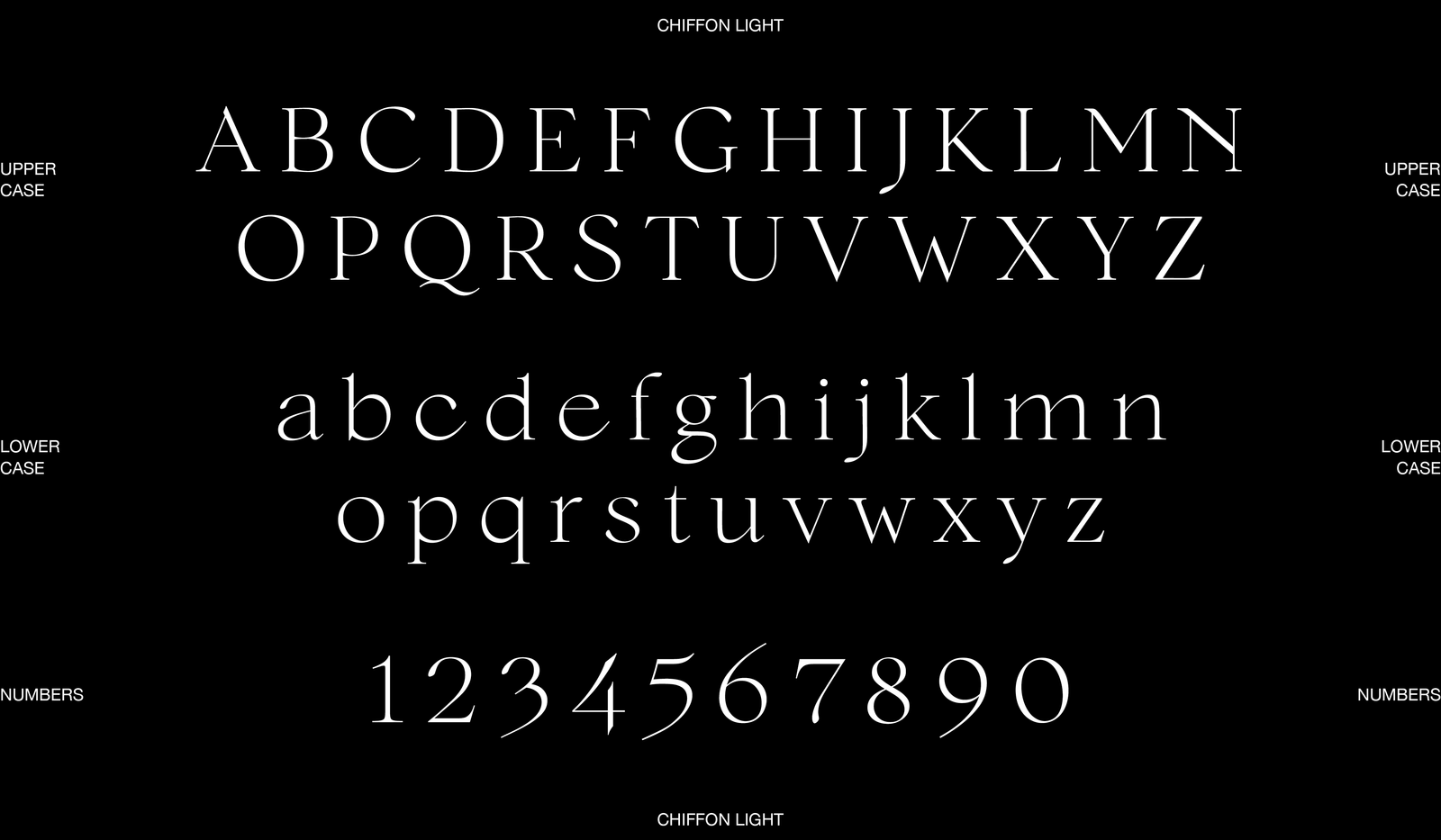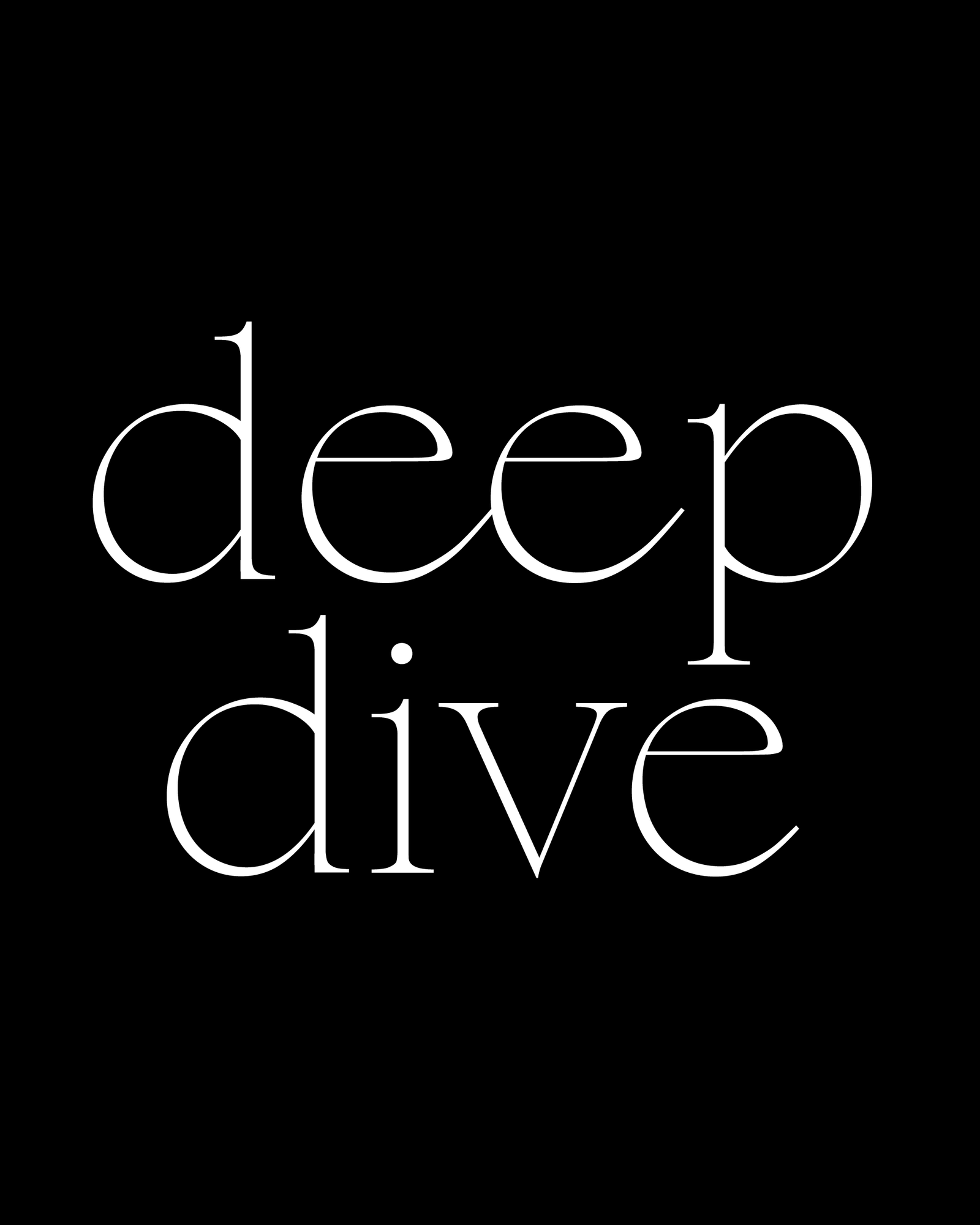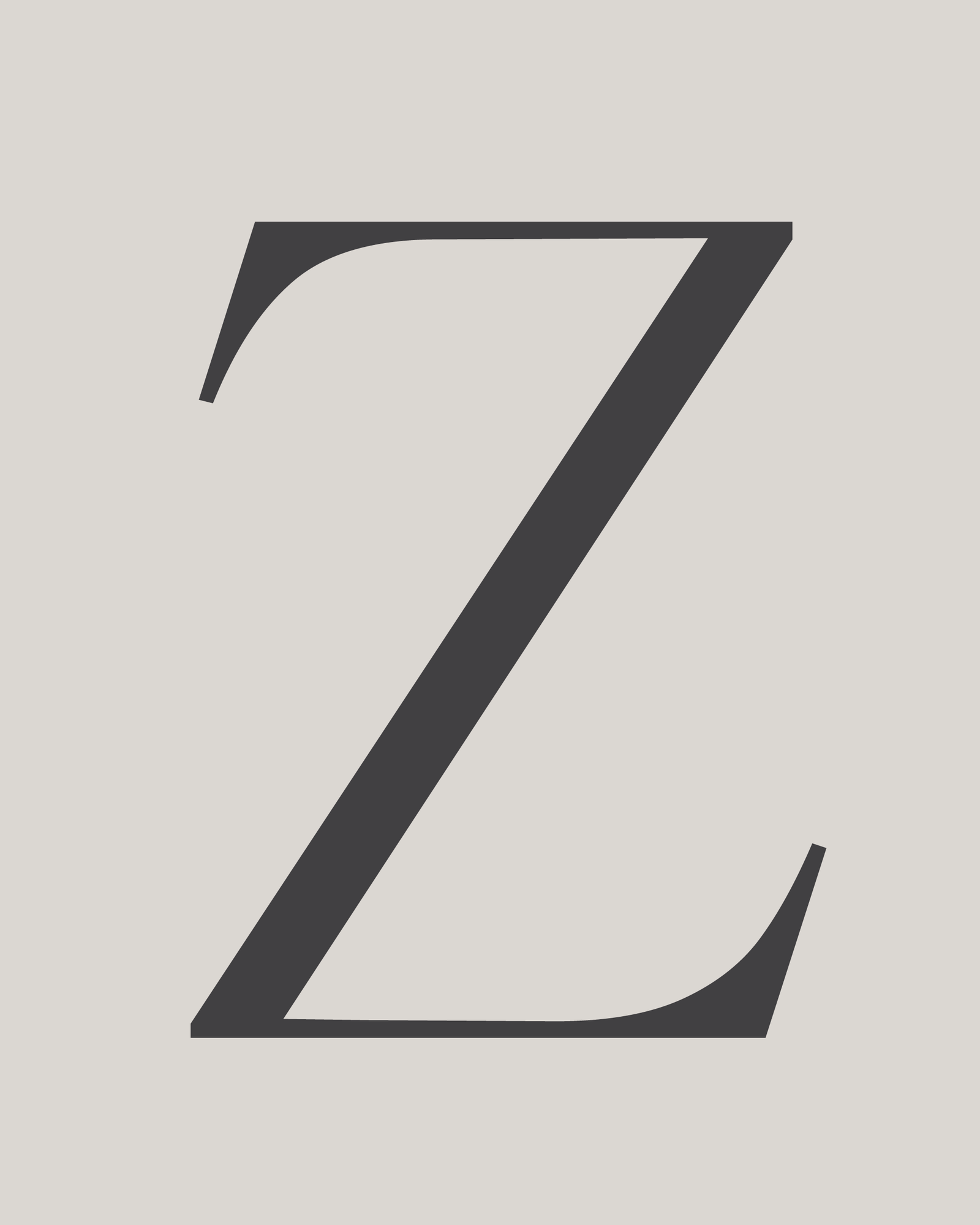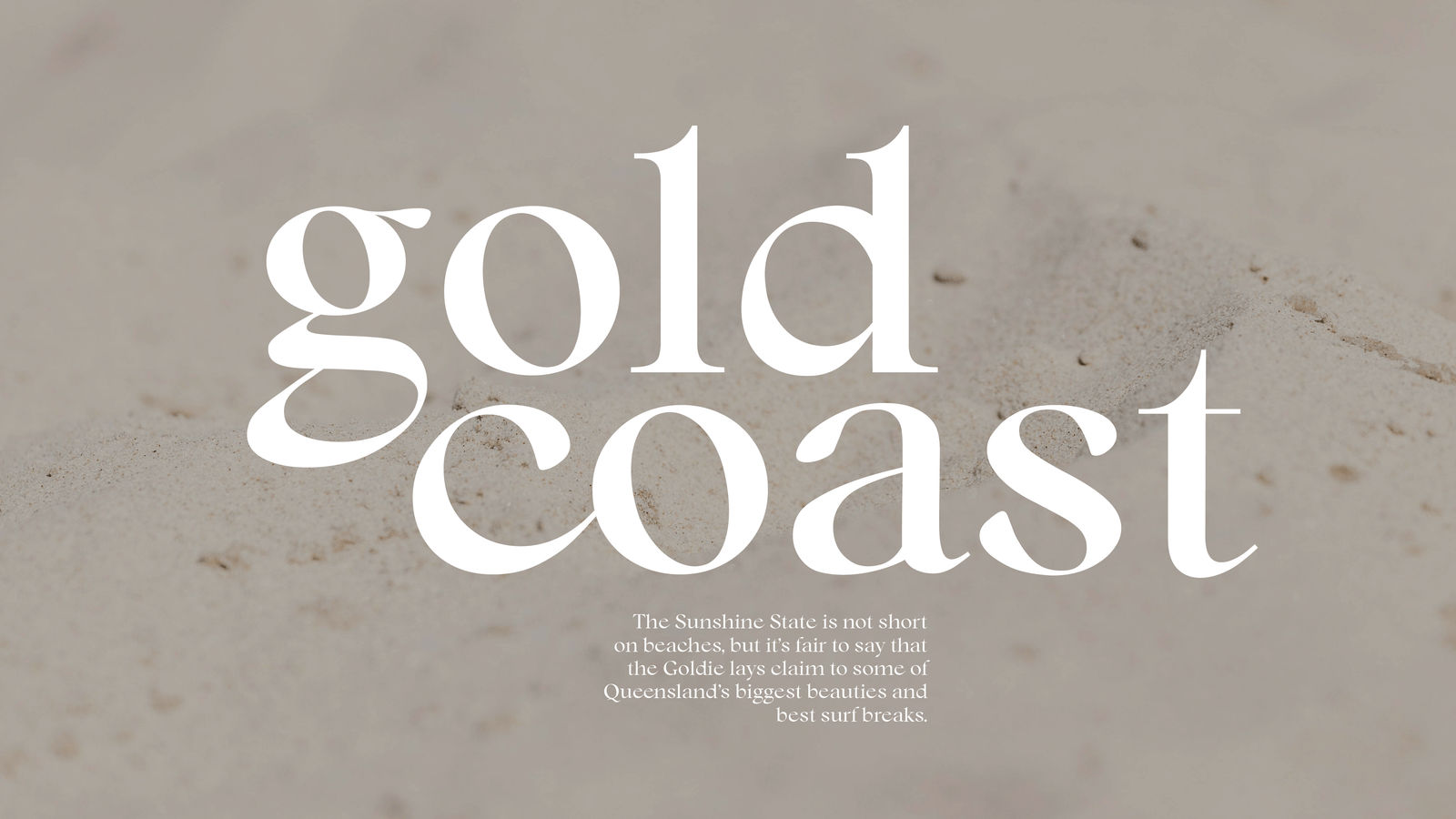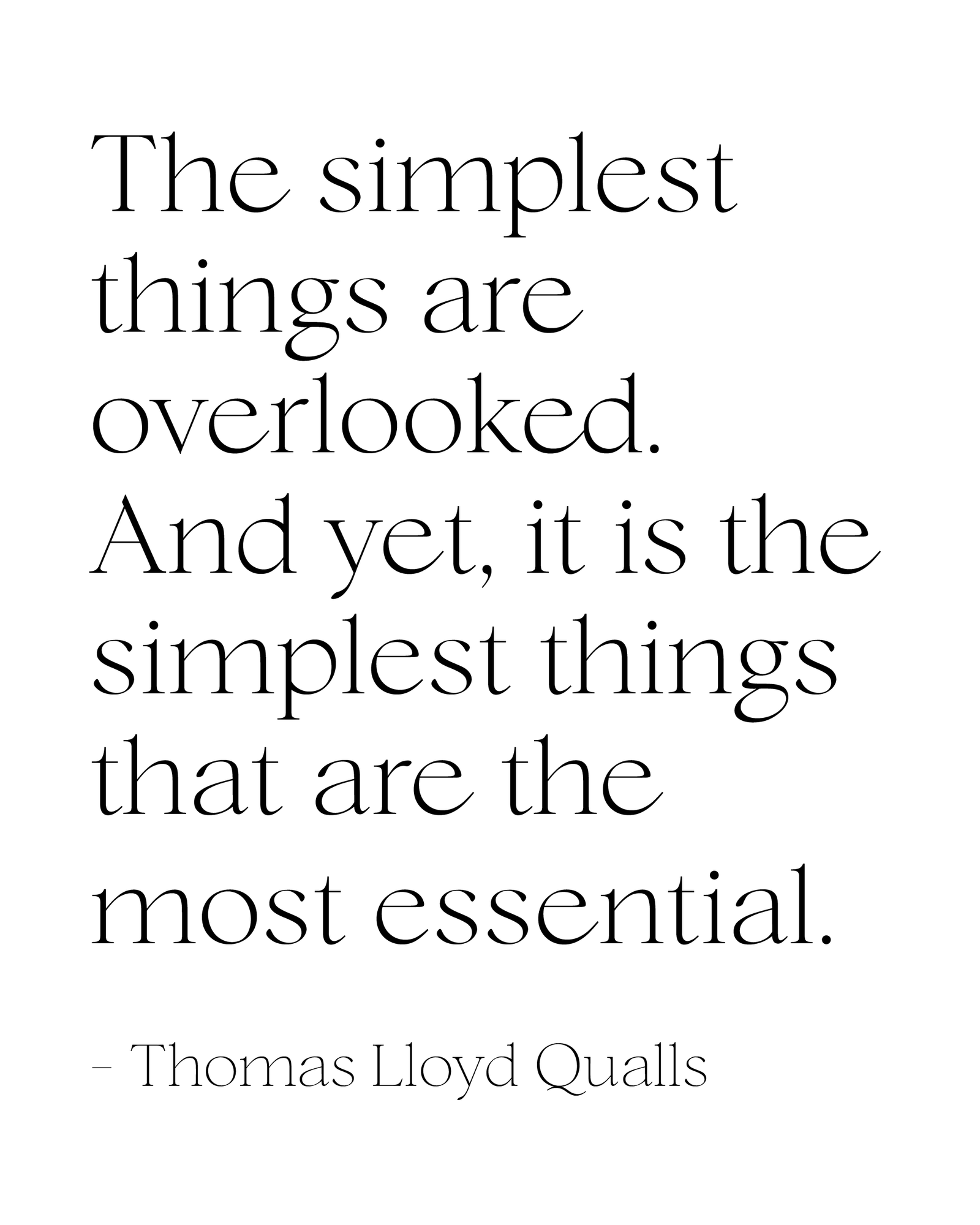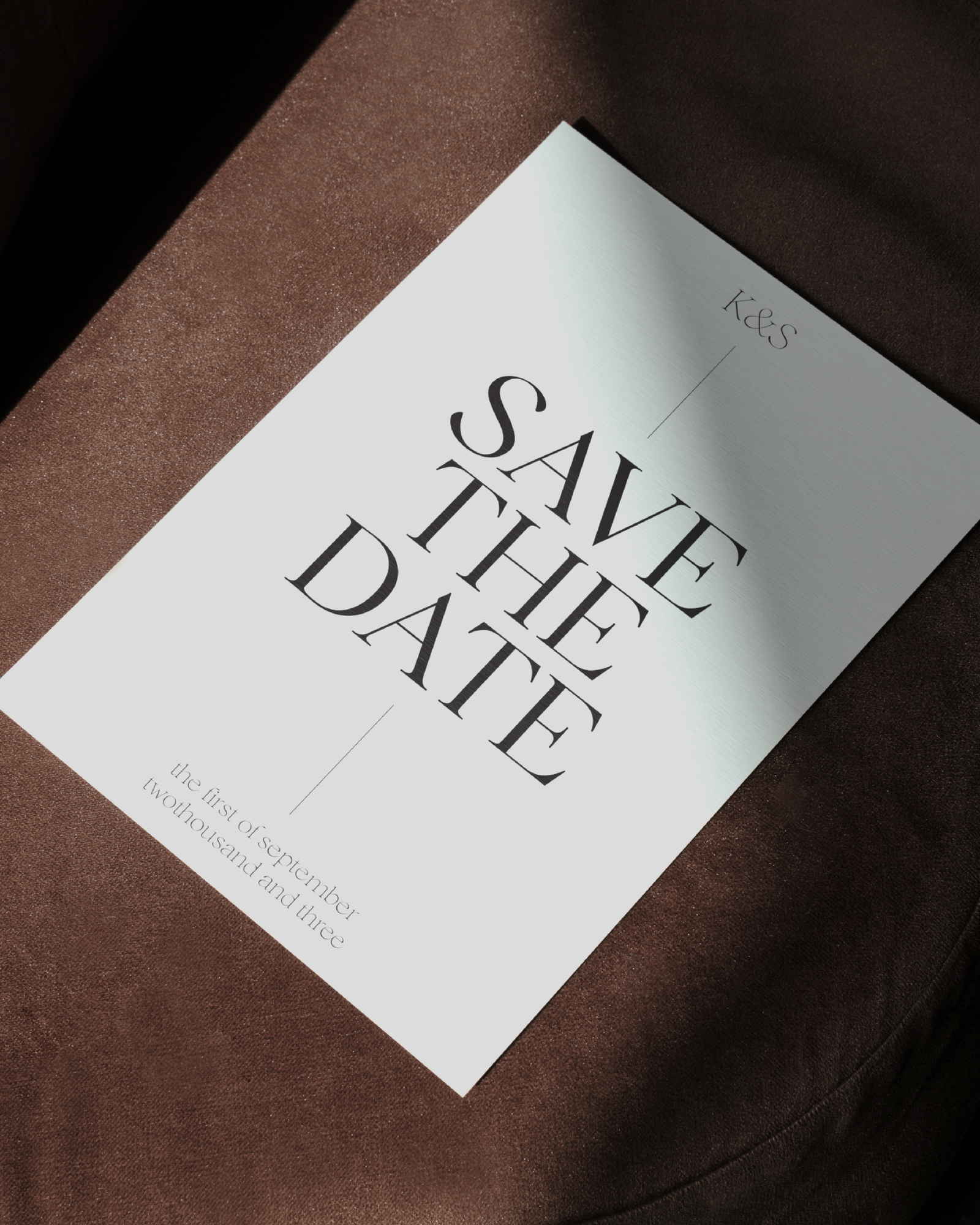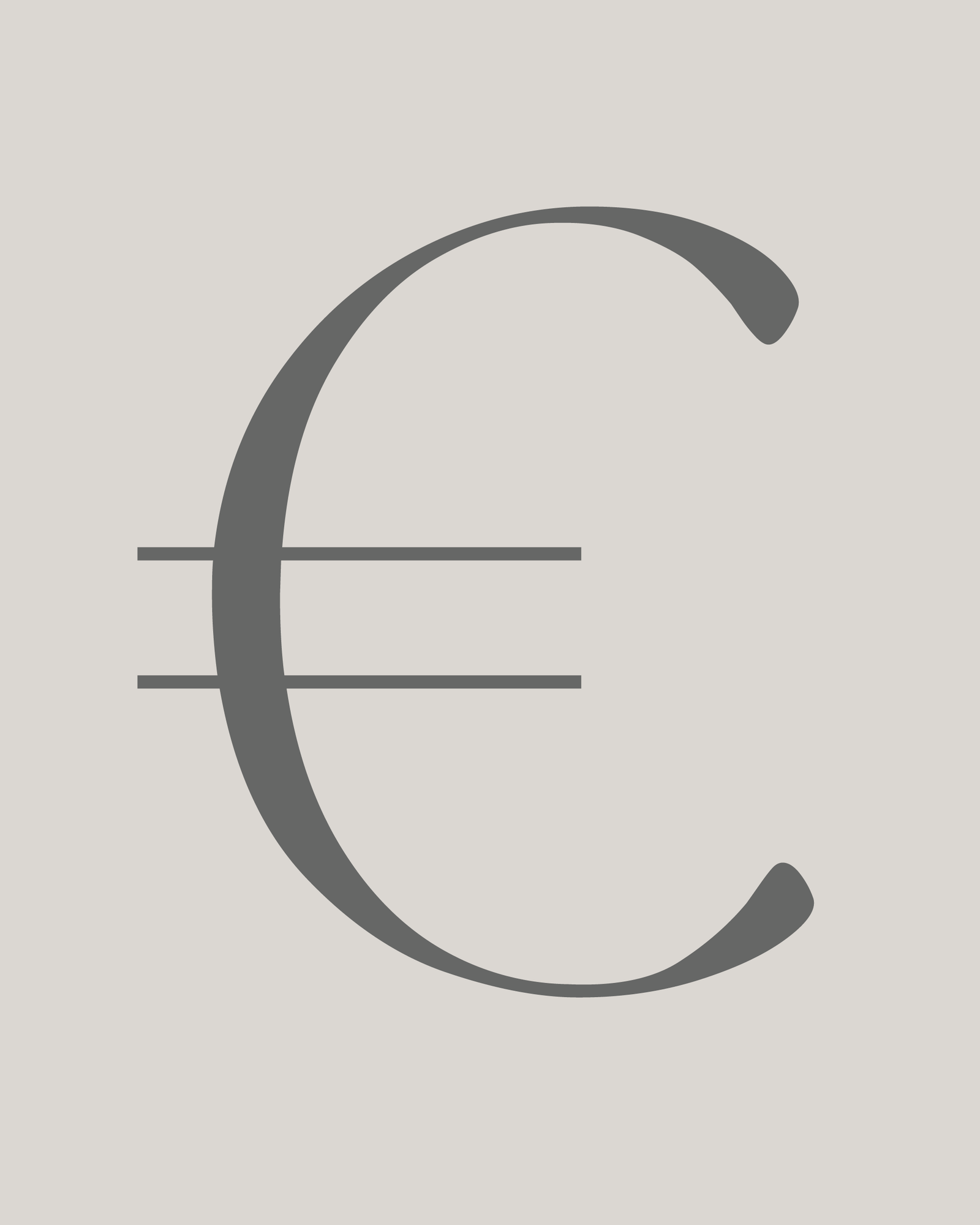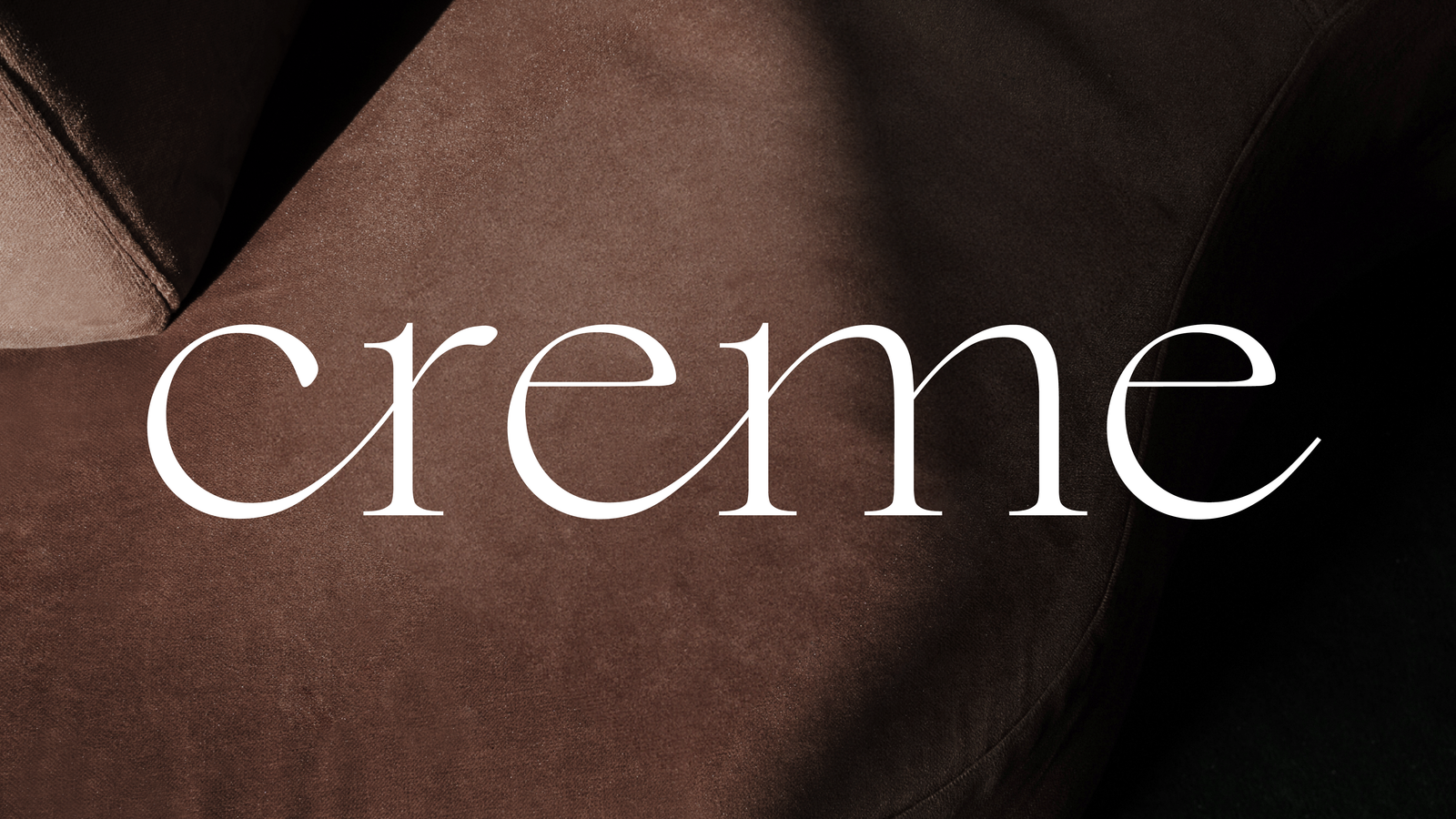
Chiffon is a serif, display typeface. With high contrast and elegant curves. Chiffon includes three different versions of ‘c’ and ‘e’, which are carefully placed throughout the typeface, paired seamlessly with the following glyph. However, OpenType features and stylistic sets make the alternate forms available for the user to choose from as they see fit. Chiffon is available in 5 weights, from Extra light to Semi Bold, and supports Western, Central, and South-Eastern European languages.